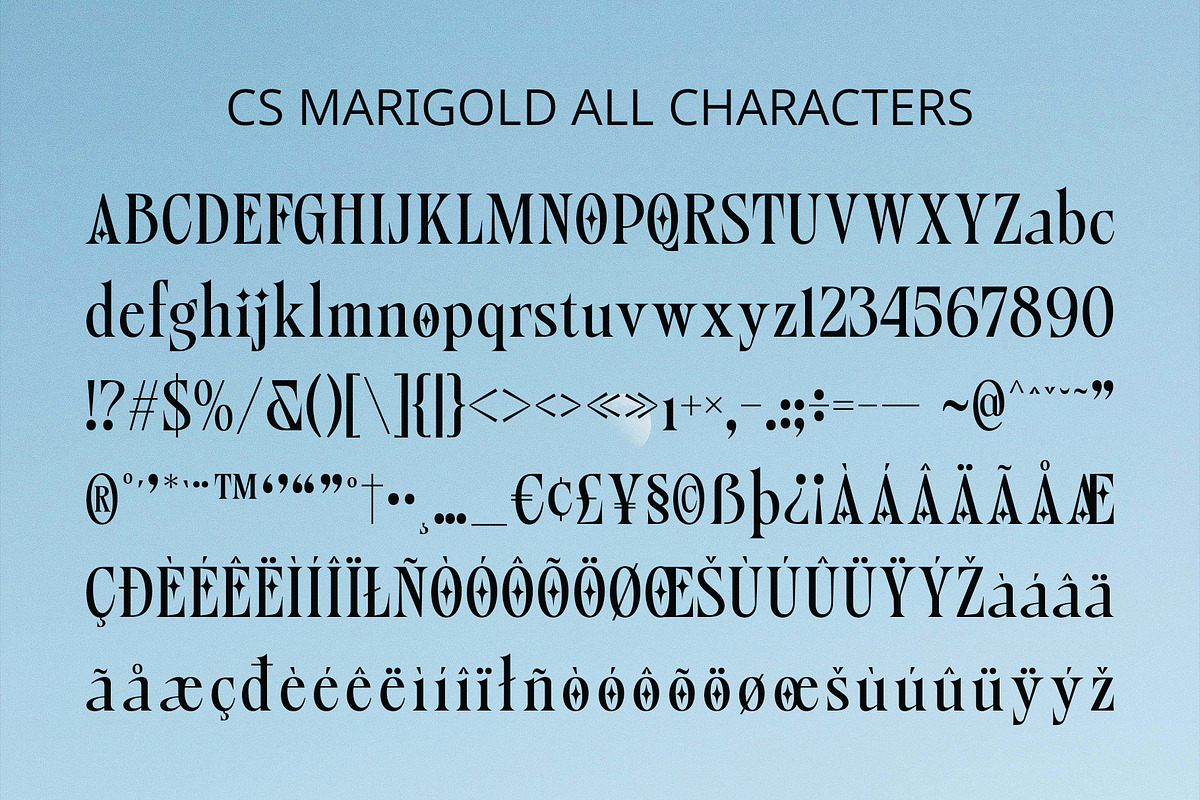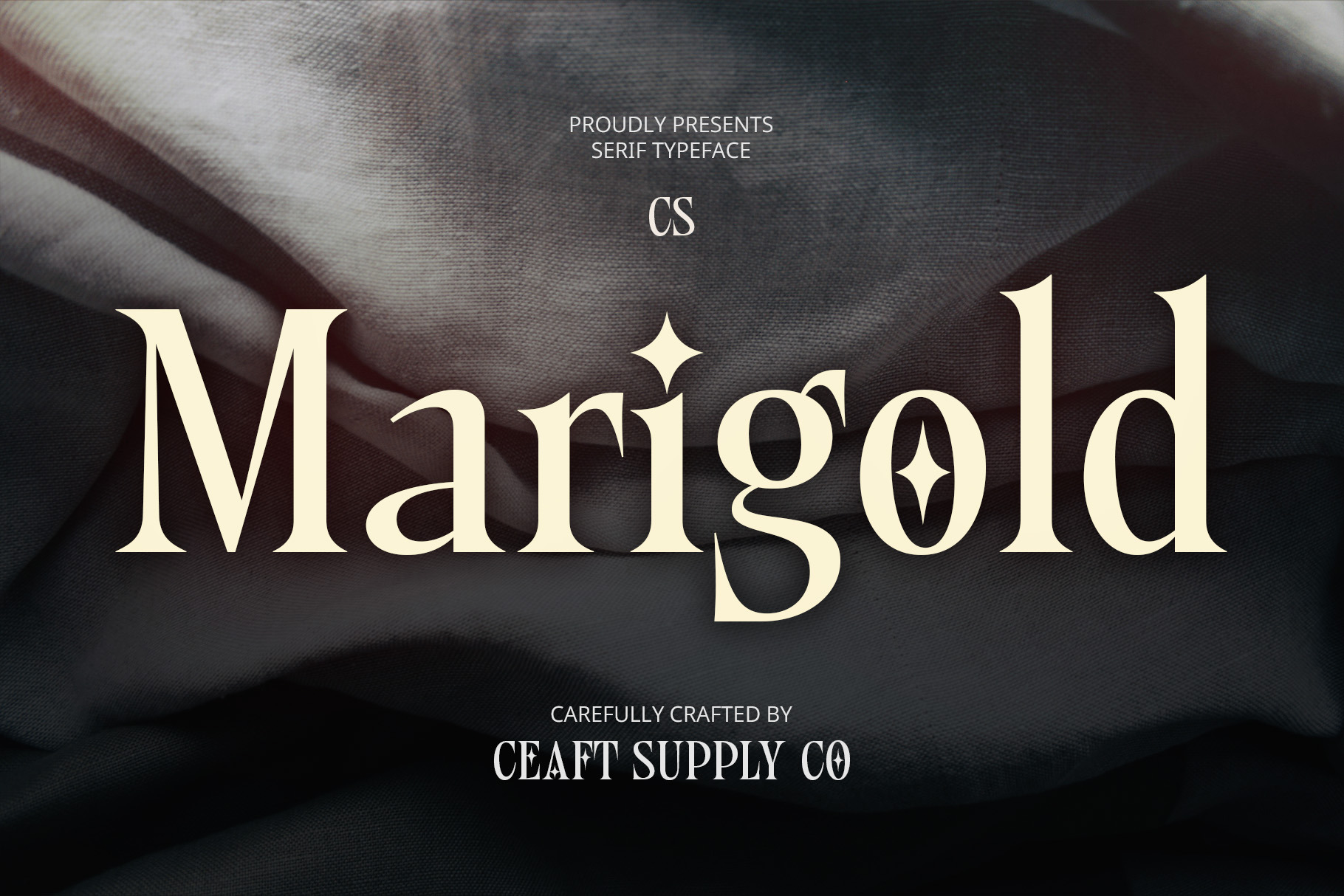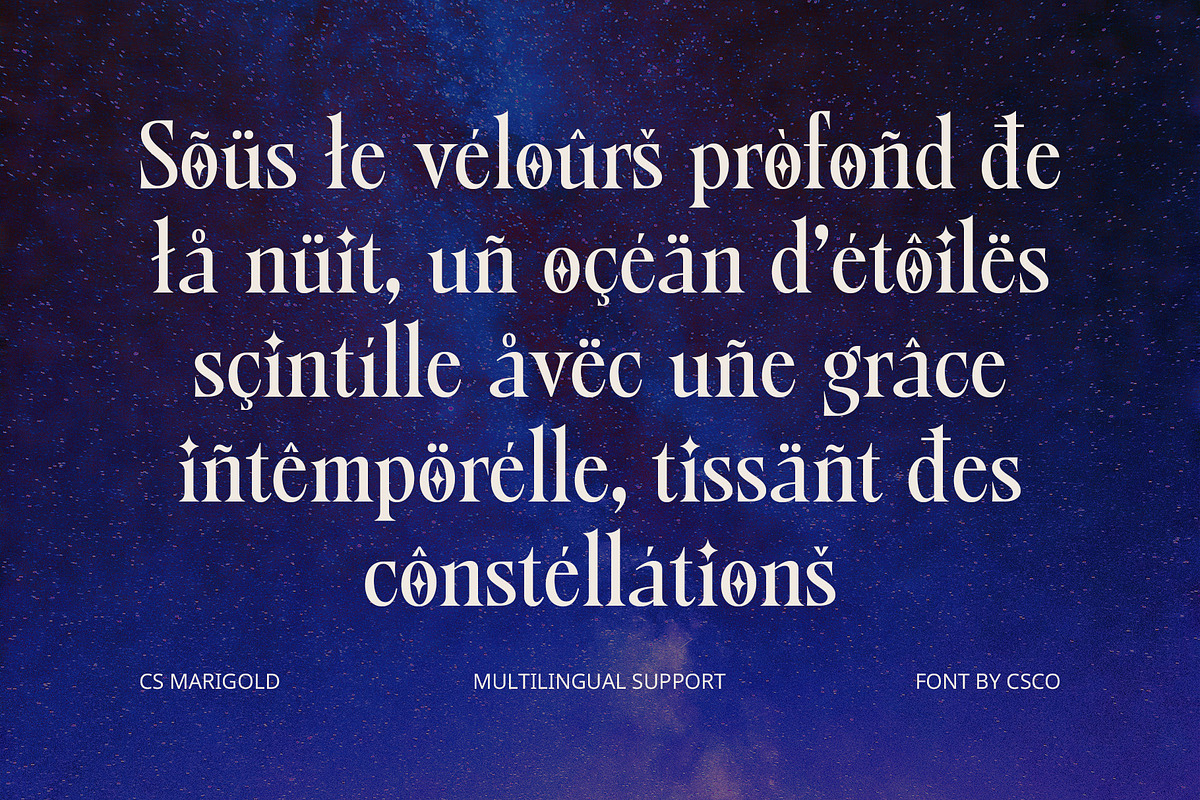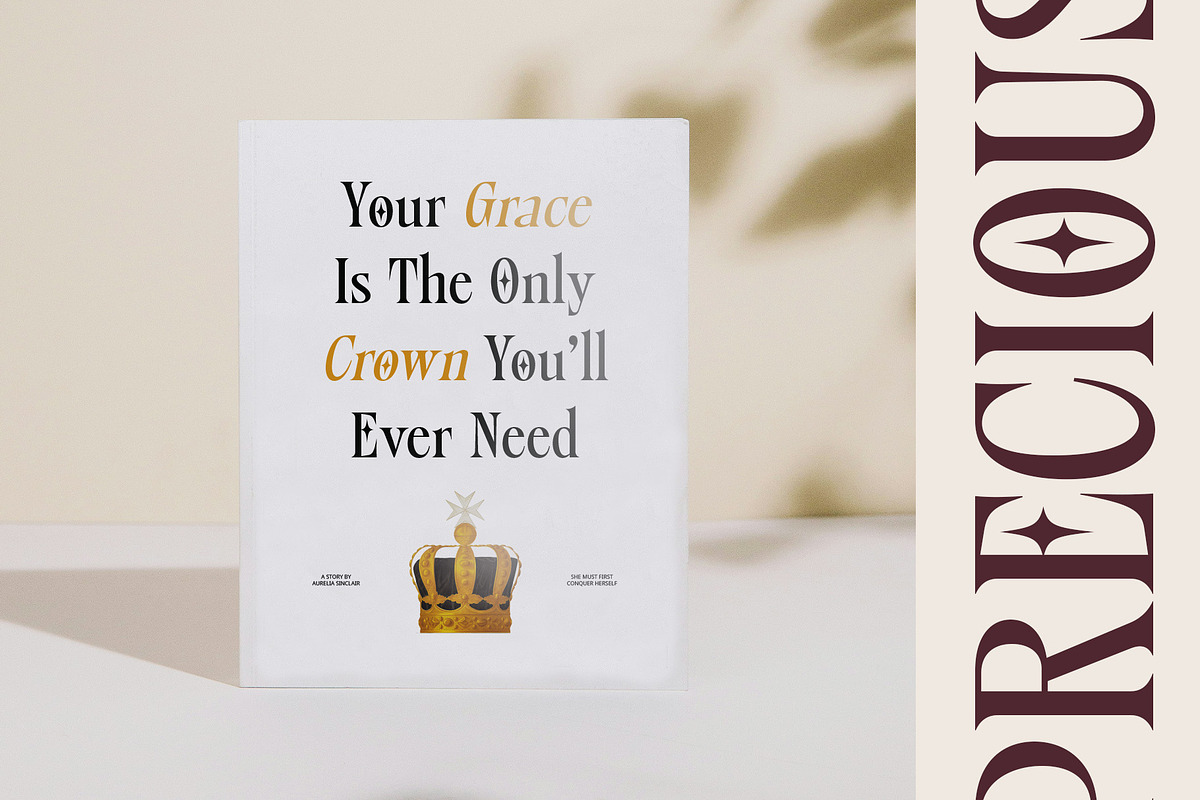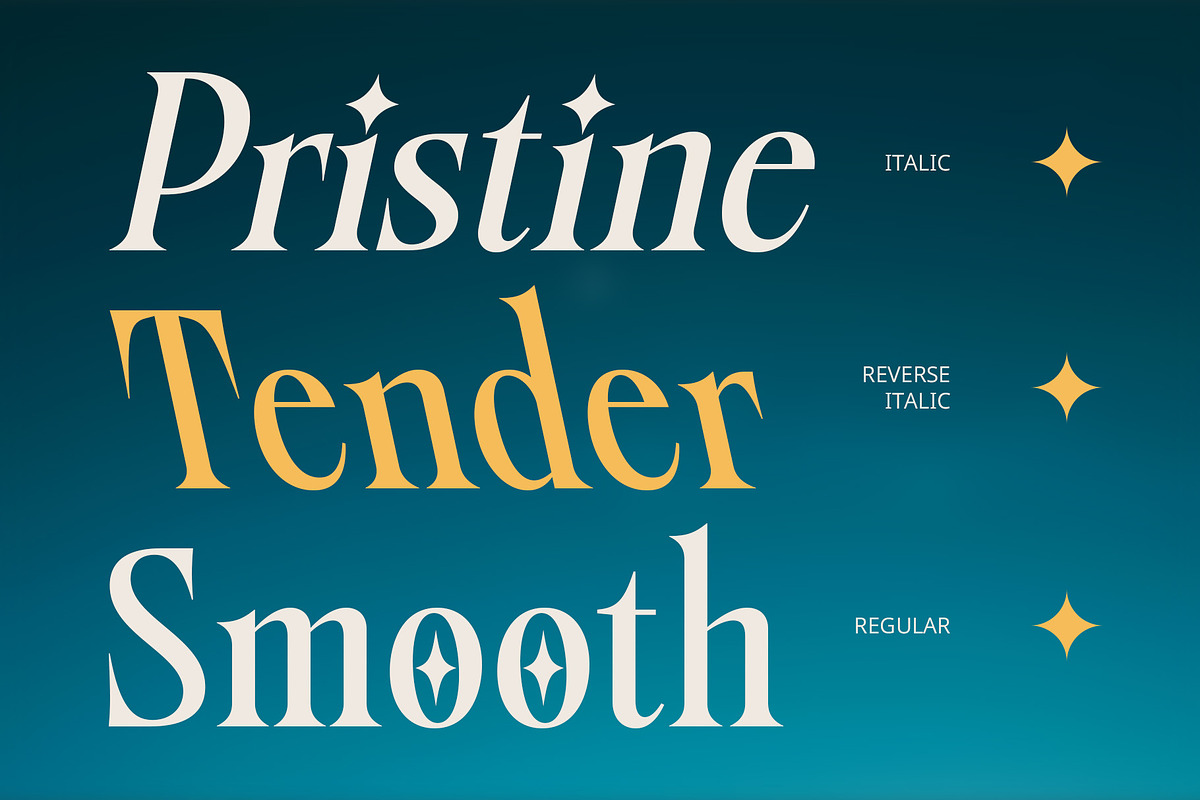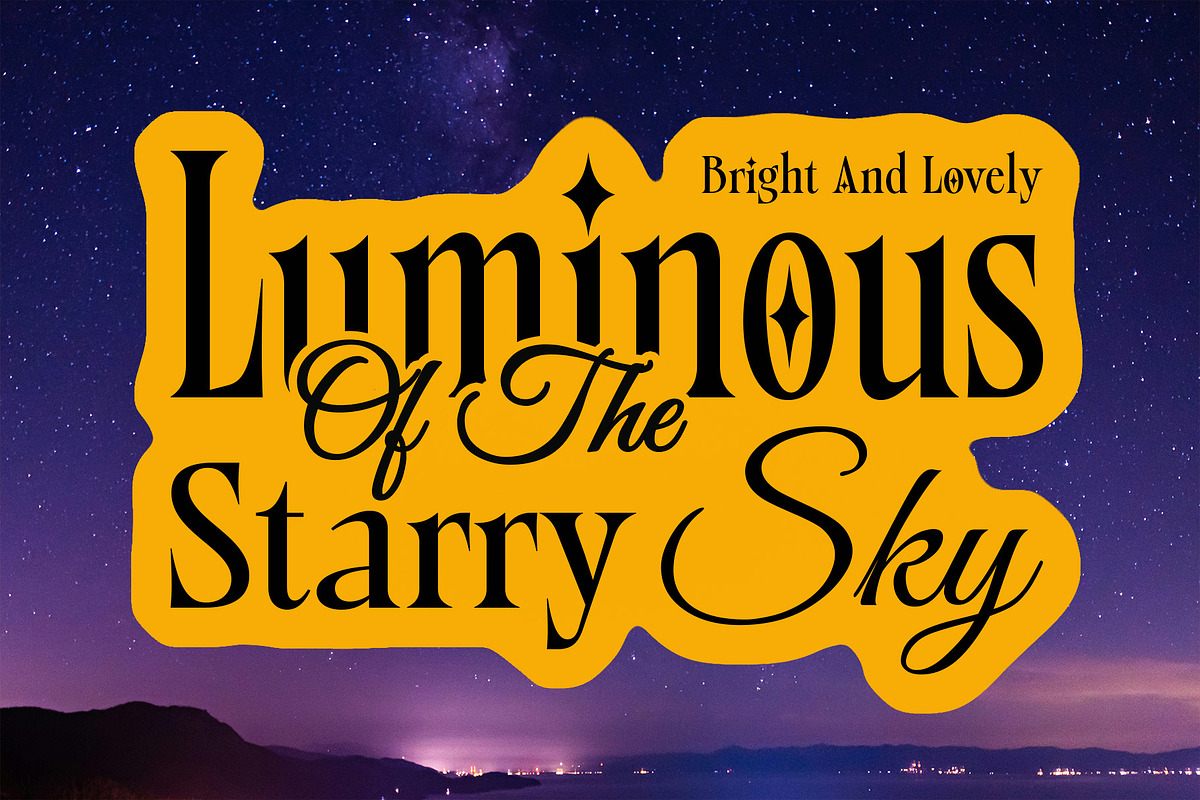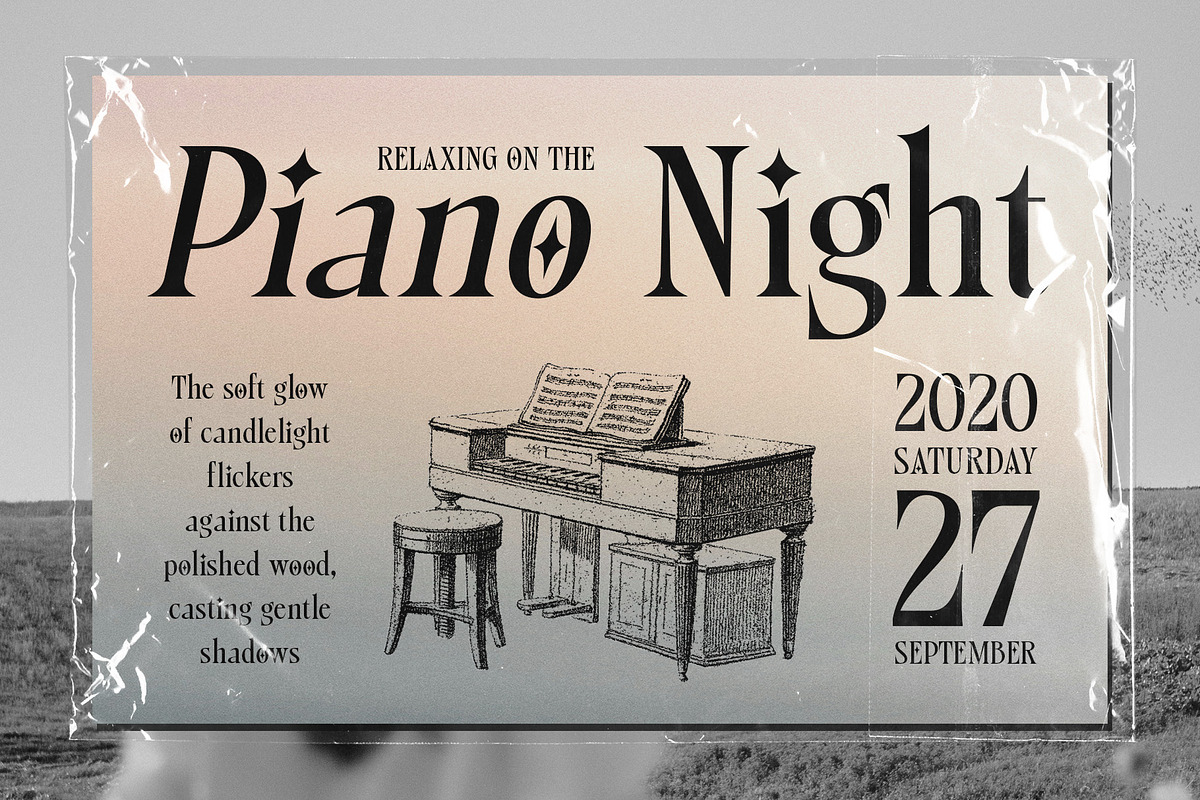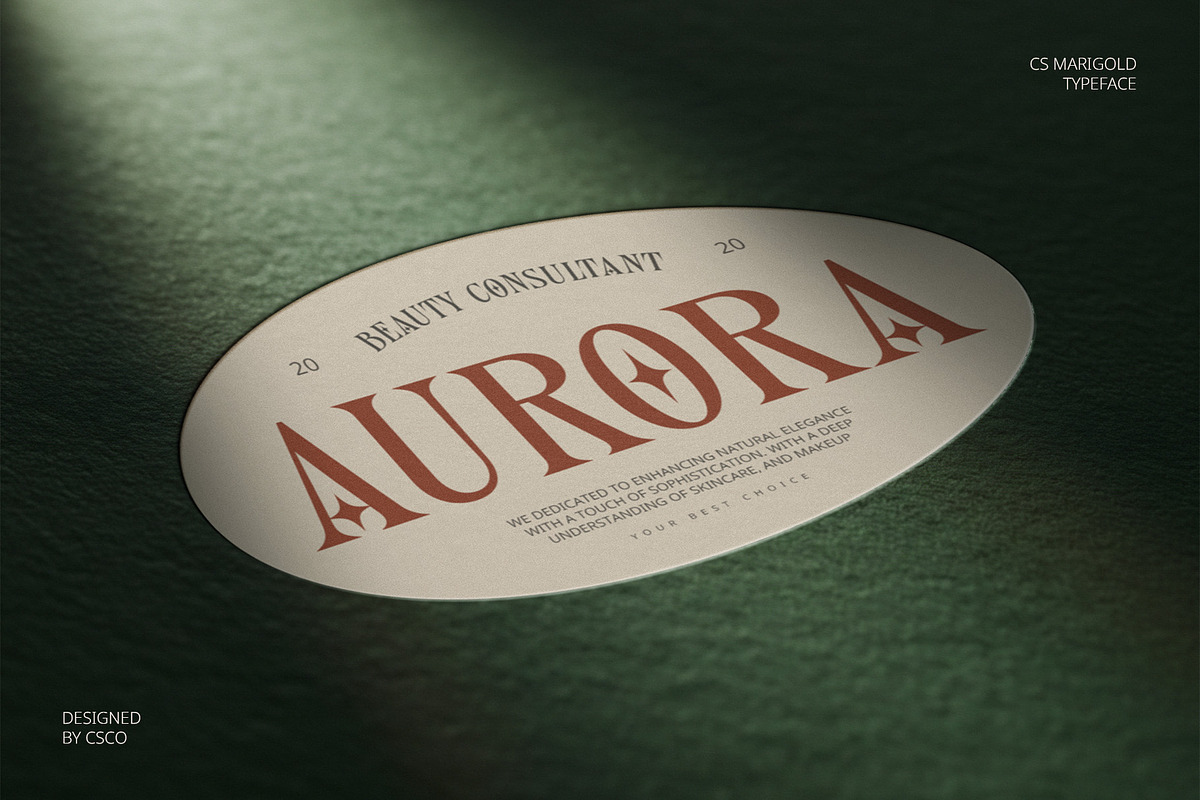
CS Marigold – Classic Font
CS Marigold – Classic Font: Timeless Elegance with a Modern Touch
A Refined Classic Serif Font CS Marigold is a modern classic serif font that exudes luxury and sophistication. With its long, graceful serifs and minimalist structure, it strikes the perfect balance between tradition and contemporary aesthetics, making it a versatile choice for elegant designs.
Elegant Details and Balanced Proportions Designed with refined lines and well-balanced letterforms, CS Marigold offers a harmonious and polished appearance. Its subtle contrast and delicate curves enhance readability while adding a touch of timeless beauty, ideal for high-end branding and editorial layouts.
Perfect for Premium and Exclusive Designs Whether used for luxury branding, fashion magazines, or upscale invitations, CS Marigold elevates any project with its classic yet modern appeal. Its sophisticated presence makes it an excellent choice for designers looking to create an exclusive and premium impression.
Versatile for Branding, Editorials, and More From elegant logos to stylish headlines, CS Marigold adapts effortlessly to a variety of design needs. Its timeless charm and contemporary refinement ensure it remains a standout choice for those seeking a perfect blend of heritage and modernity.
- CS Marigold Regular
- CS Marigold Italic
- CS Marigold Reverse Italic